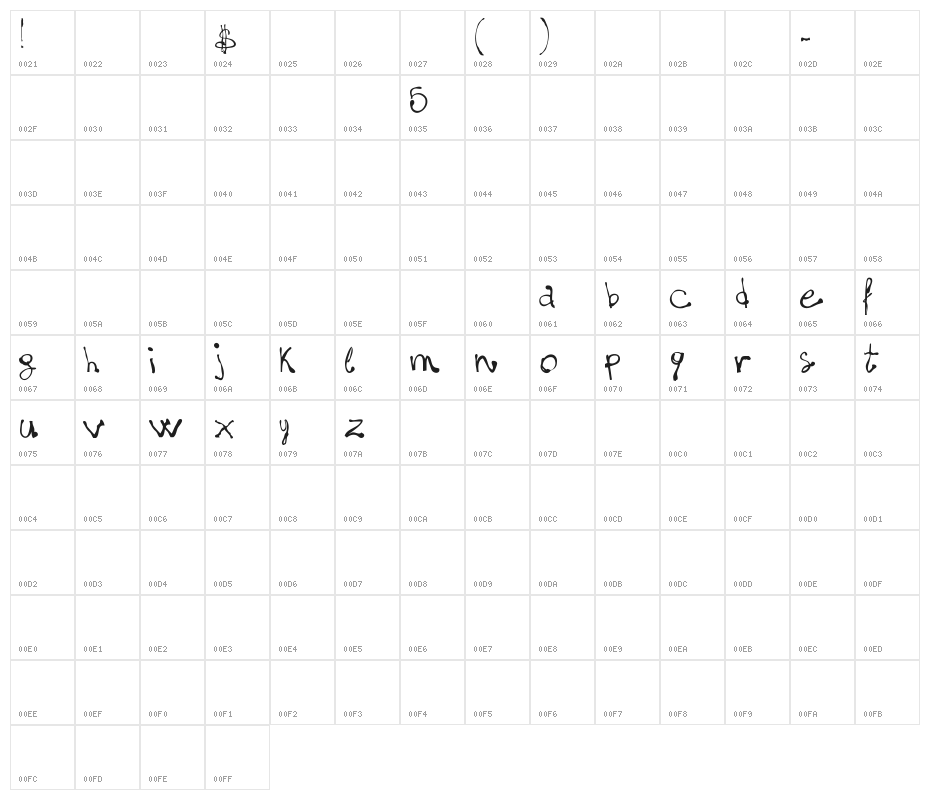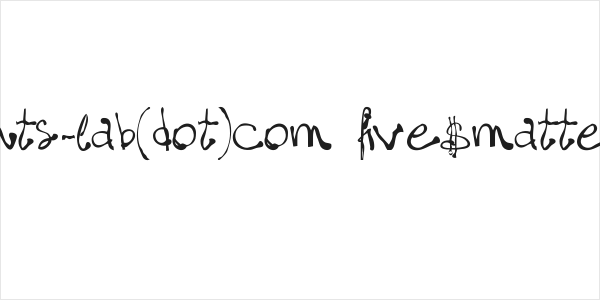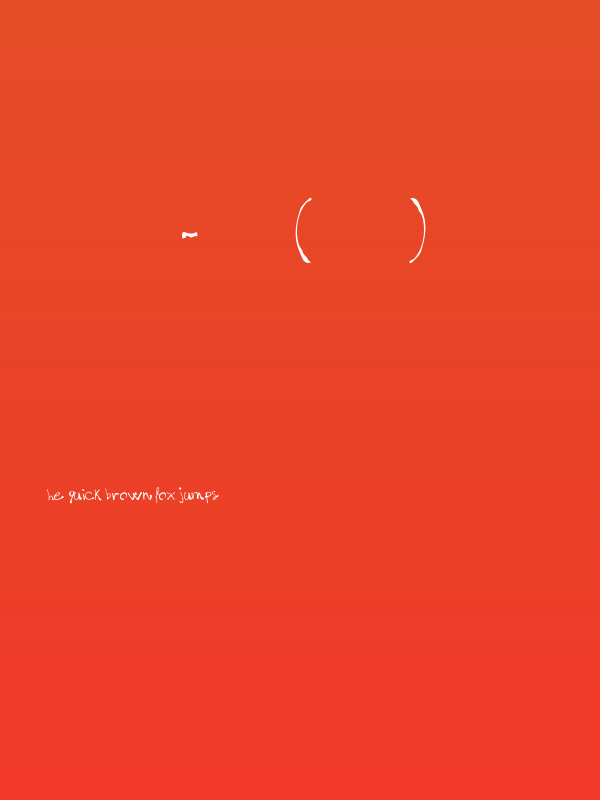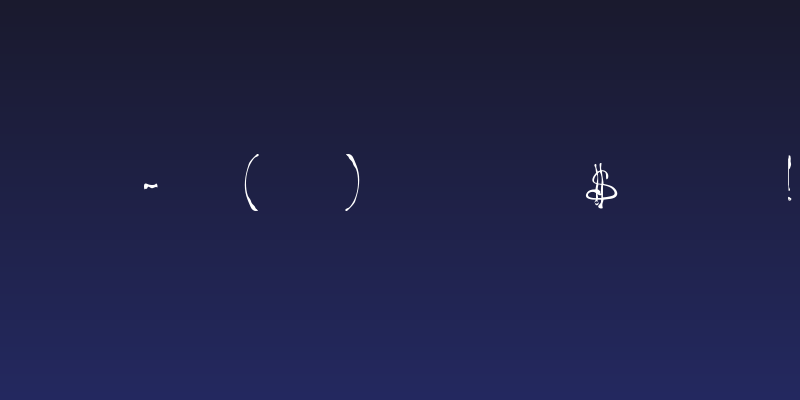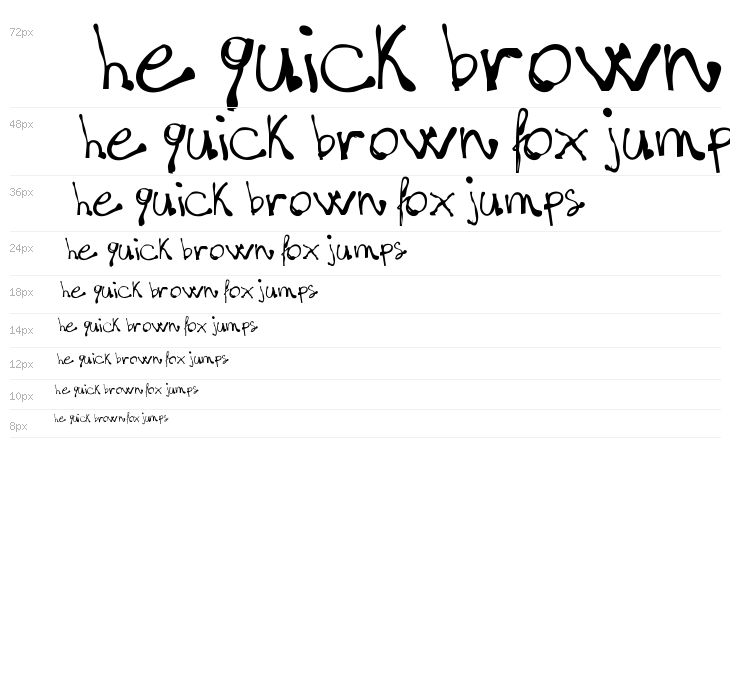
fonts-lab(dot)com_five$matter! Font
fonts-lab(dot)com_five$matter! Description
This font features a playful and whimsical handwritten style, characterized by its irregular and dynamic letterforms. Each character has a unique, almost quirky appearance, with varying stroke thicknesses that add to its charm. The letters are slightly tilted and have a casual, informal feel, making them perfect for creative projects. The font's organic flow and uneven baseline give it a lively and energetic vibe, while the distinctive shapes of the letters ensure readability despite their unconventional design.